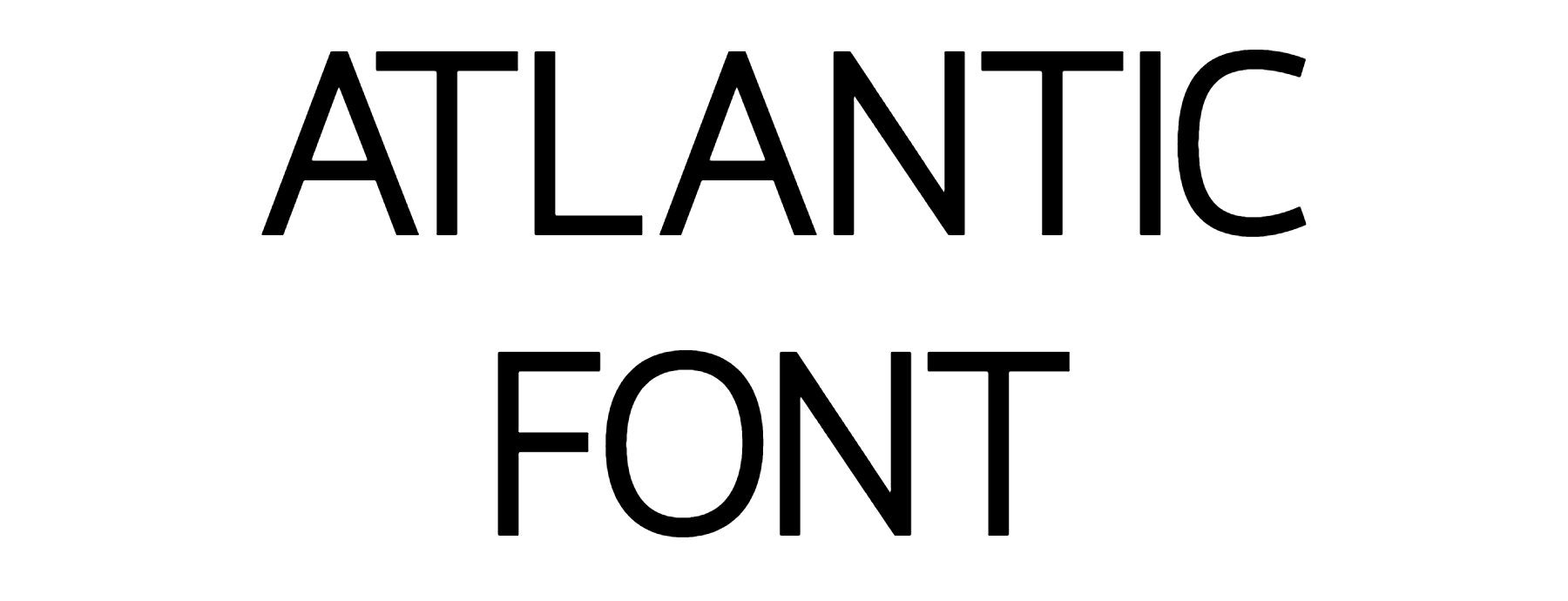
Atlantic
Atlantic is a sans serif font created by Alexa Christie and released through Christie Creative. Simple, open letter shapes keep it easy to read at almost any size, from app buttons to big headlines. You can download it for free and test it with your own words in the preview above.
What You Can Type With Atlantic
You get every letter from A to Z in both cases and all the numbers from 0 to 9, which means Atlantic can handle full sentences, dates and prices. Everyday marks like &, !, ? and @ are there too. There are no accented letters like é or ñ, so it's best kept to English text.
Where Atlantic Works Best
Designers usually reach for fonts like Atlantic when they're making websites, app screens and clean logos. It works for headings and body text alike. If the download has several weights, use a heavier one for titles and a lighter one for paragraphs.
Does Atlantic support accented letters?
No. Atlantic has no accented letters such as é, ñ or ü, so it's best for English text.